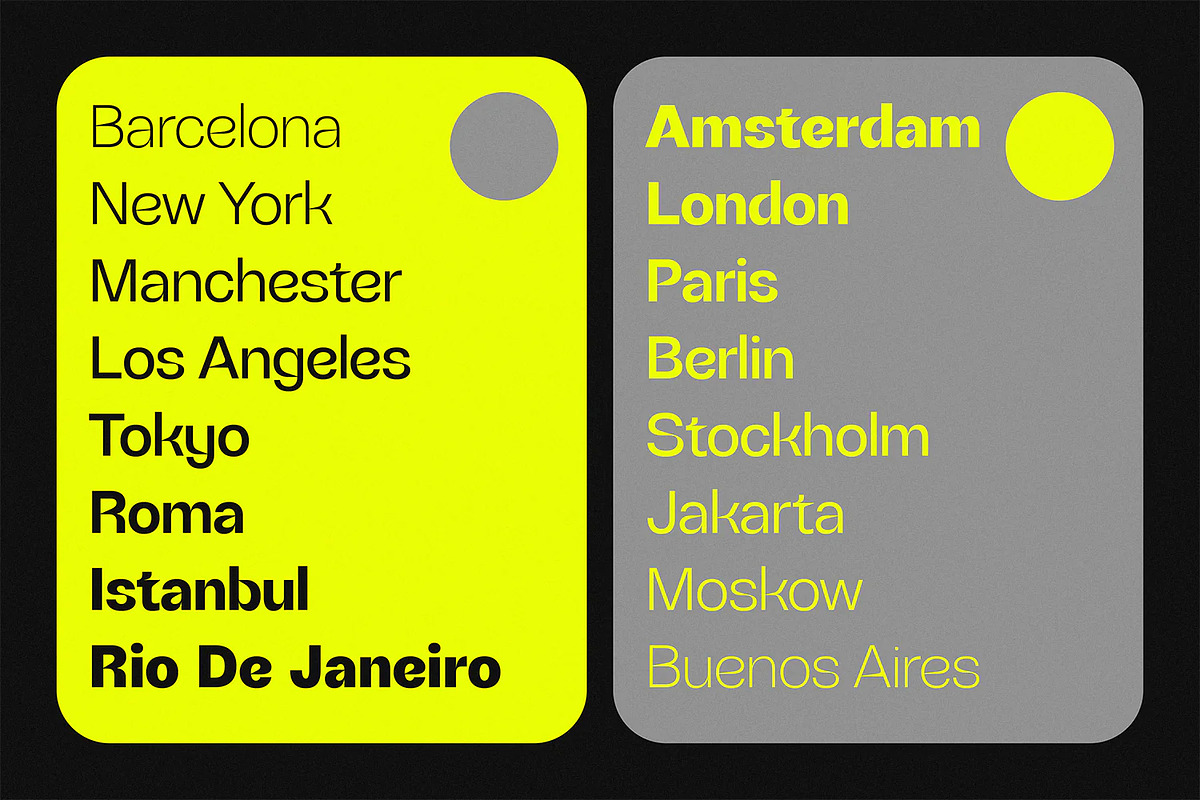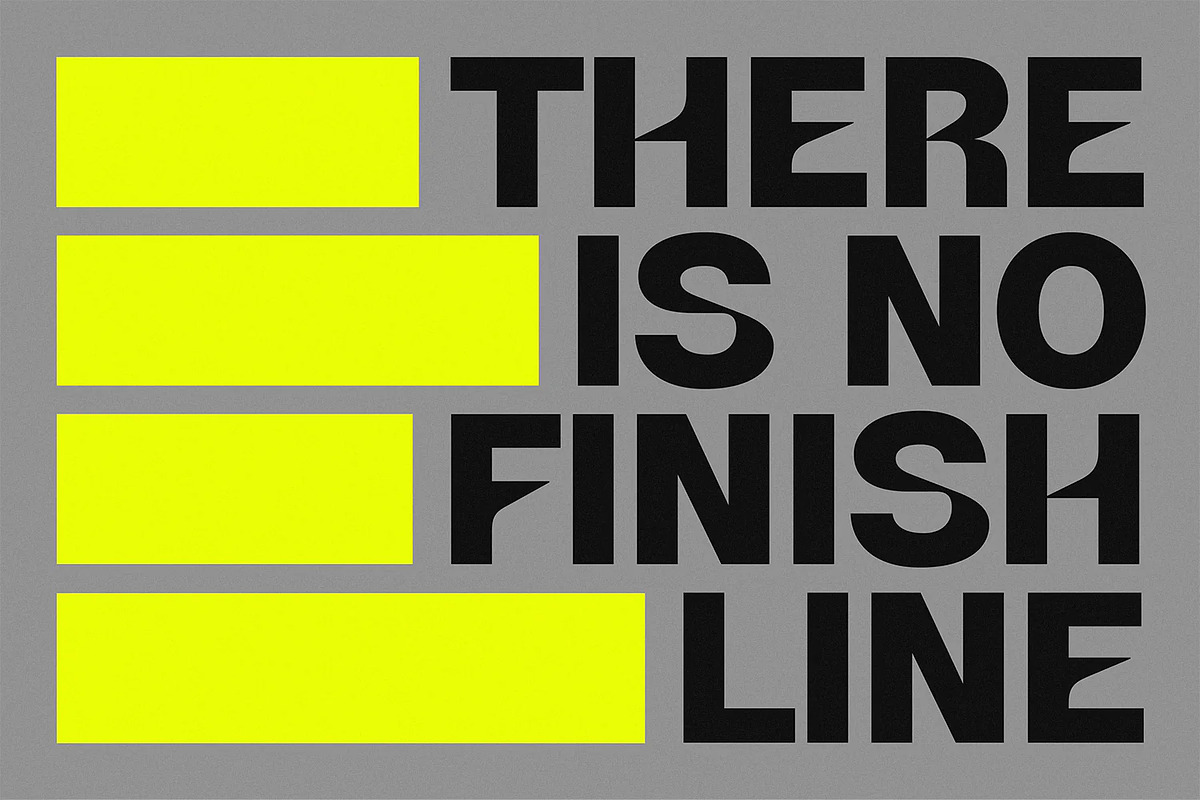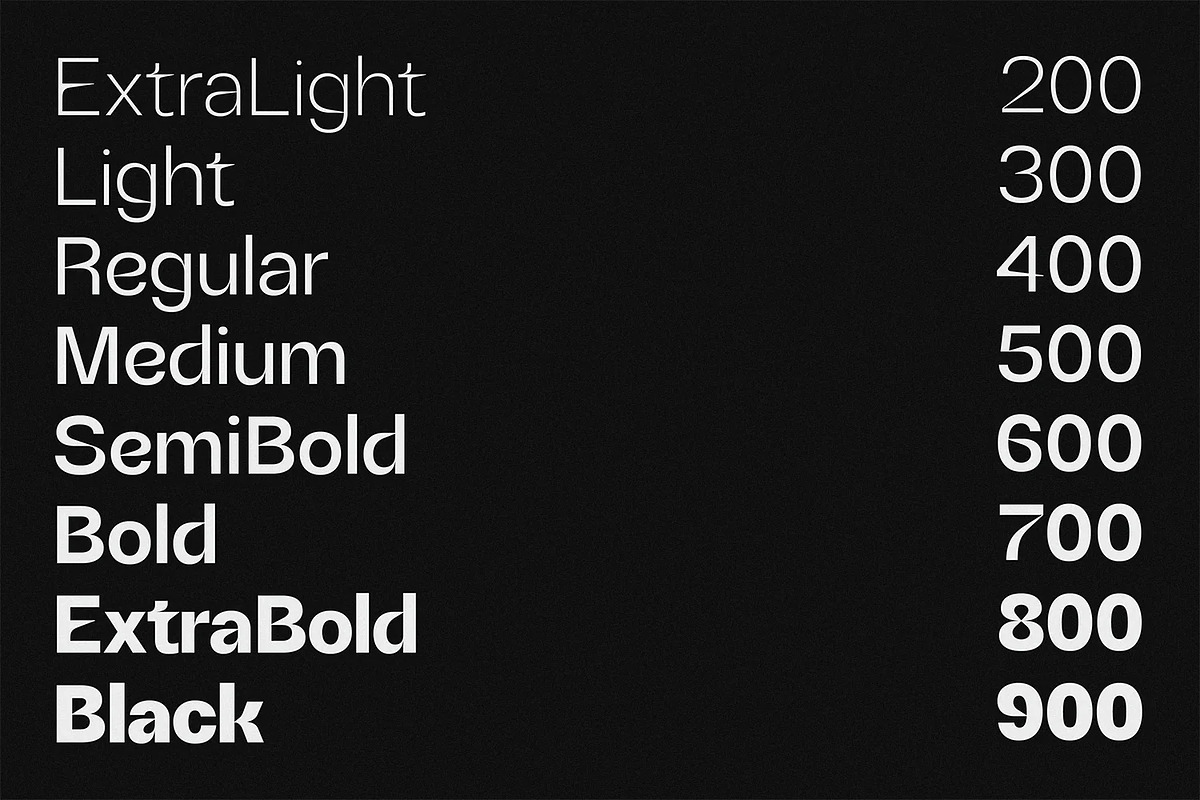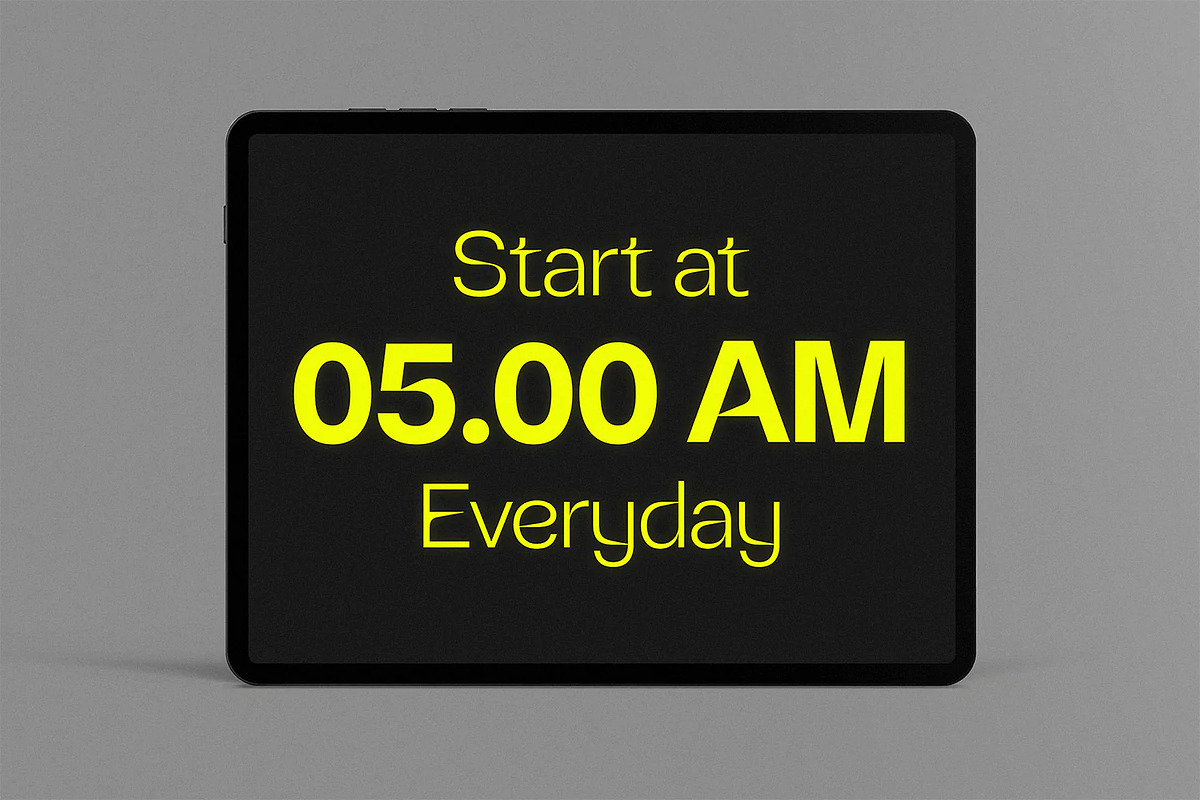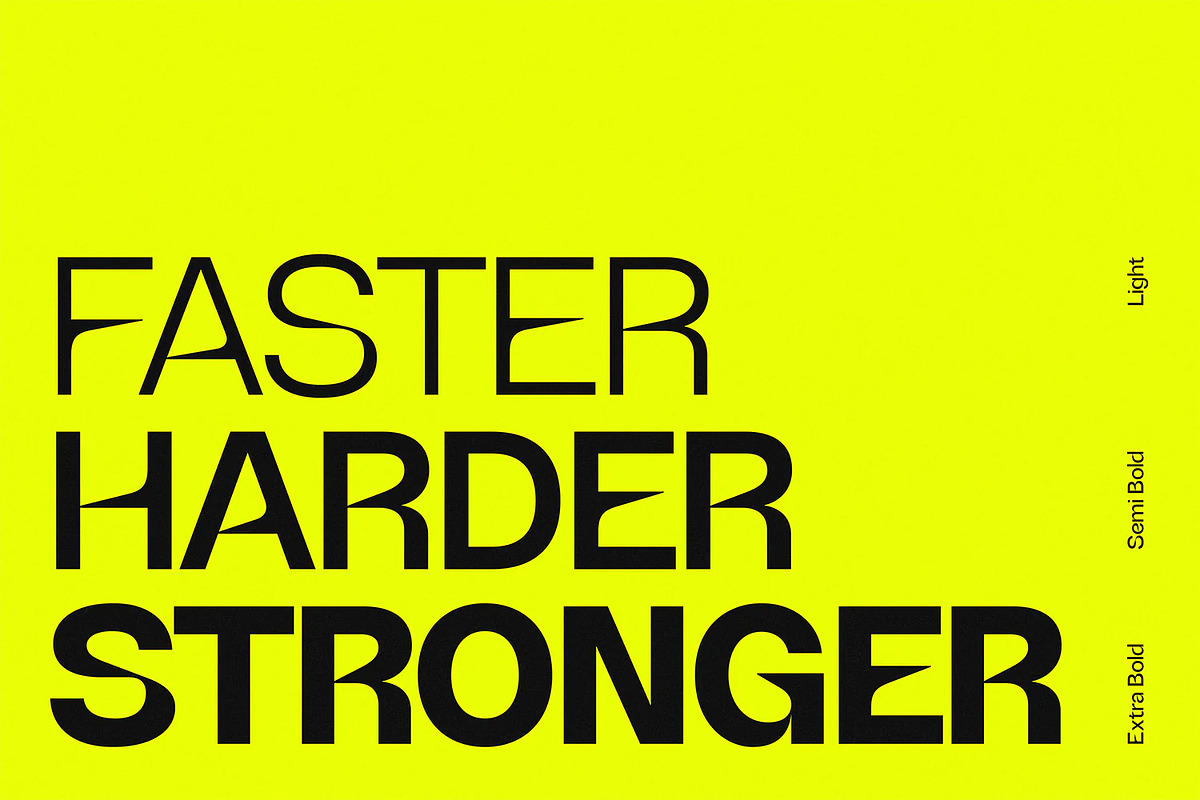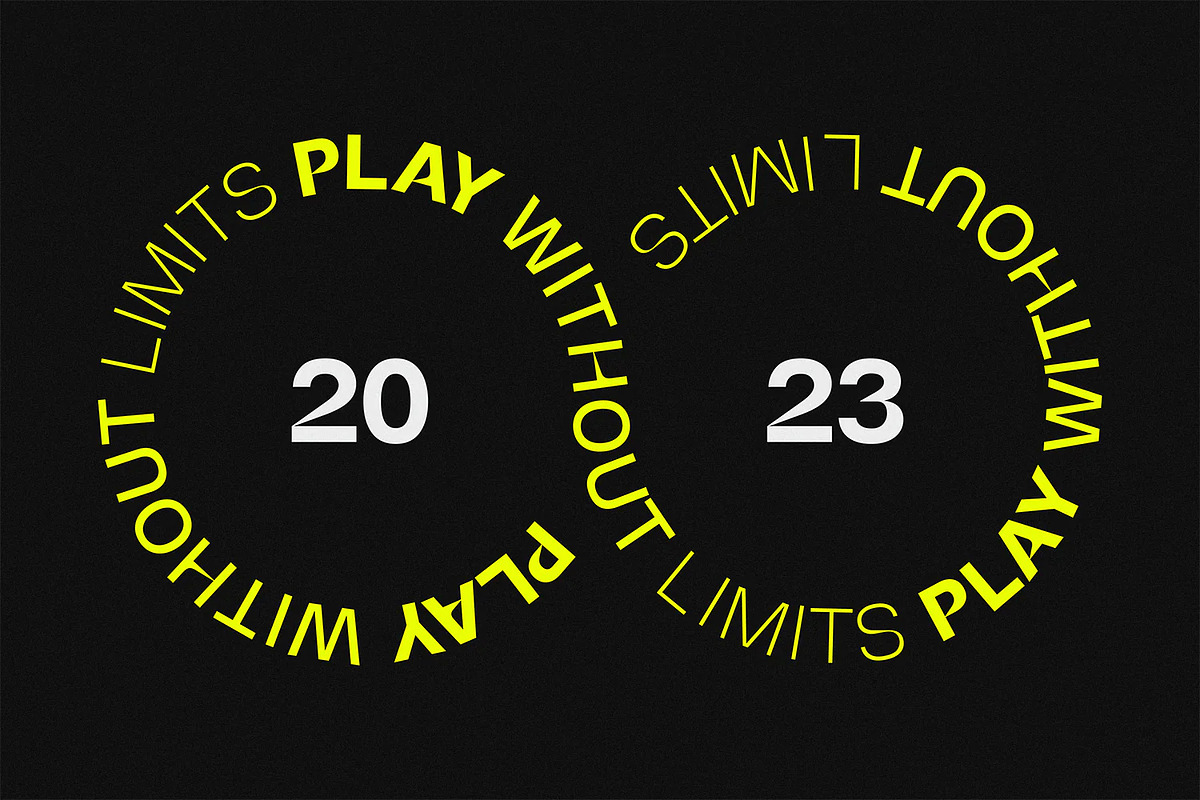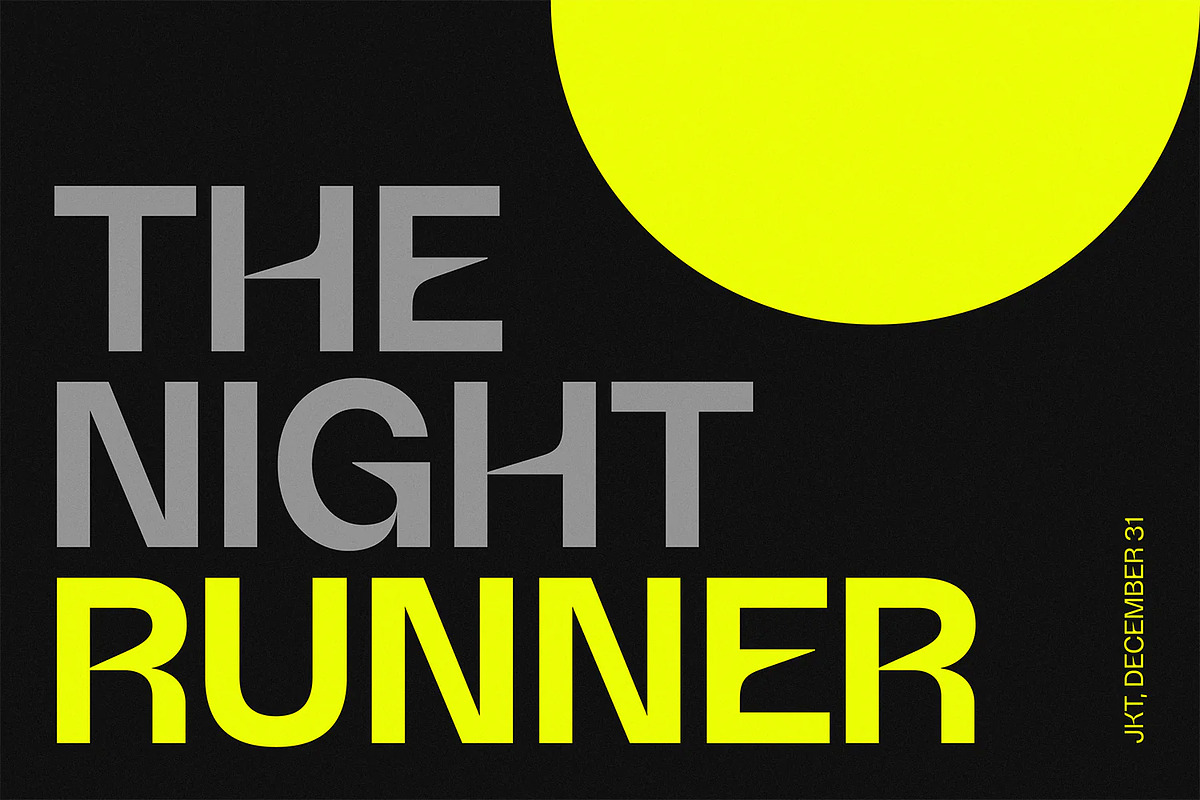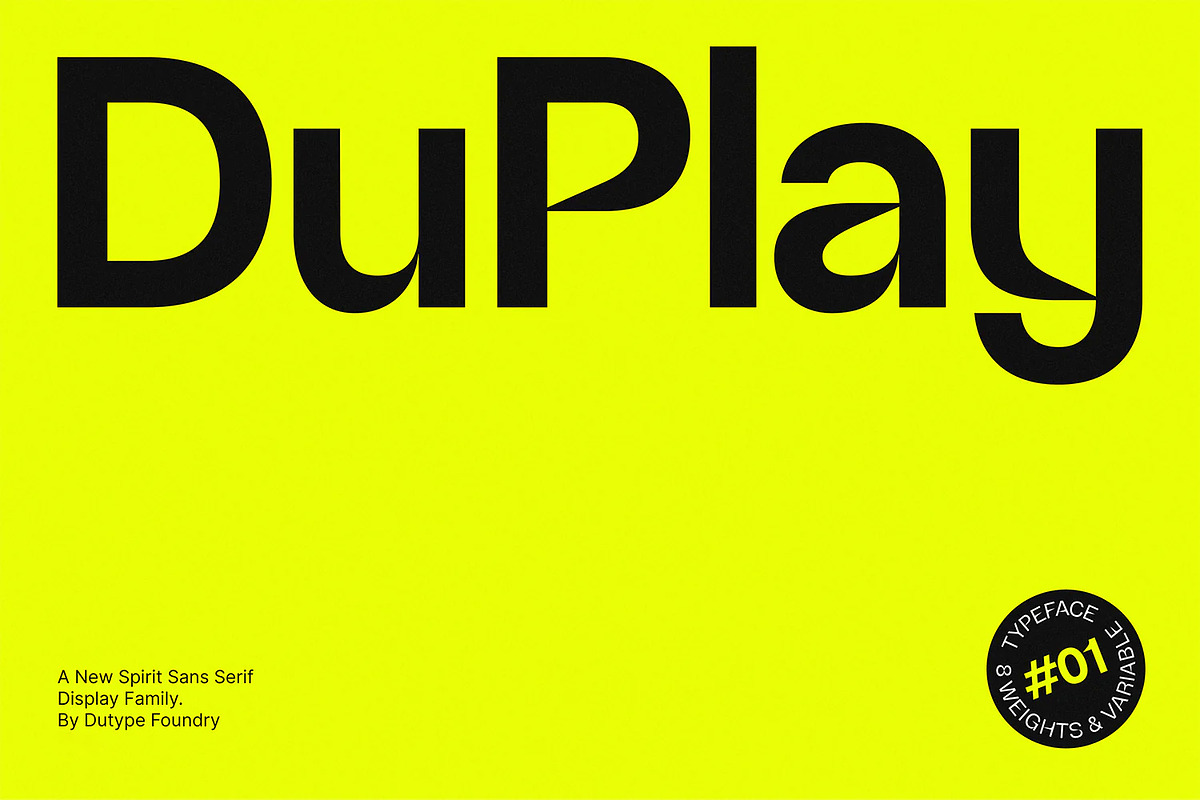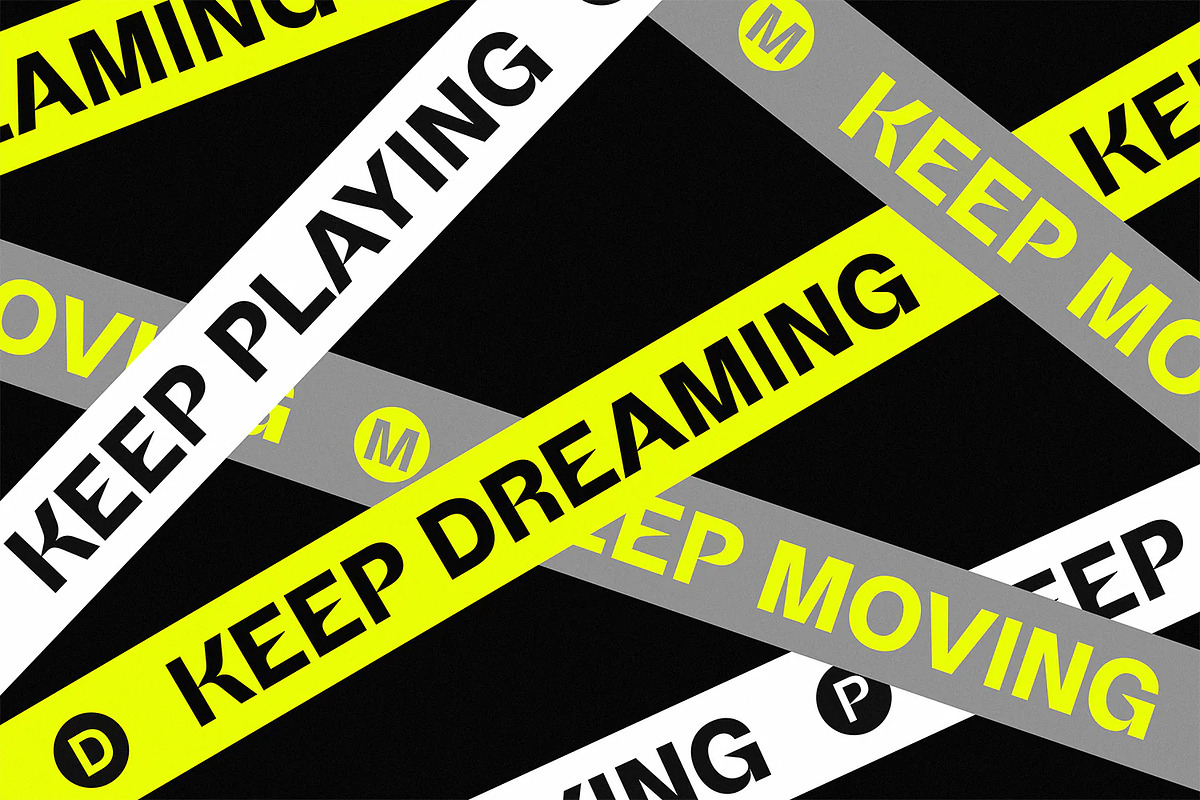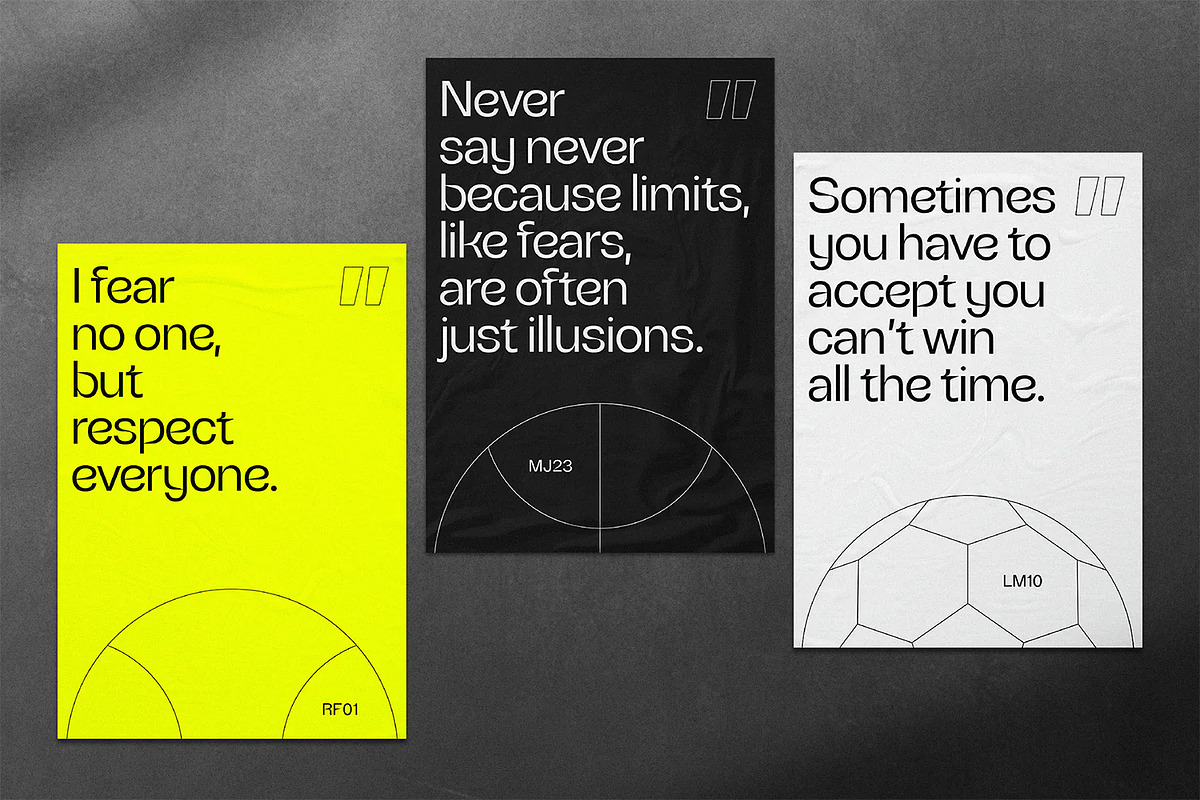
DuPlay
DuPlay is a modern geometric sans-serif typeface designed by Darman Kadir. It draws inspiration from classic Swiss-style typefaces like Helvetica, resulting in a clean and strong aesthetic. The font is well-suited for display purposes such as branding, headlines, and advertising, particularly within the sports and apparel industries. DuPlay's solid and fast appearance lends itself to creating a prominent and impactful visual identity.